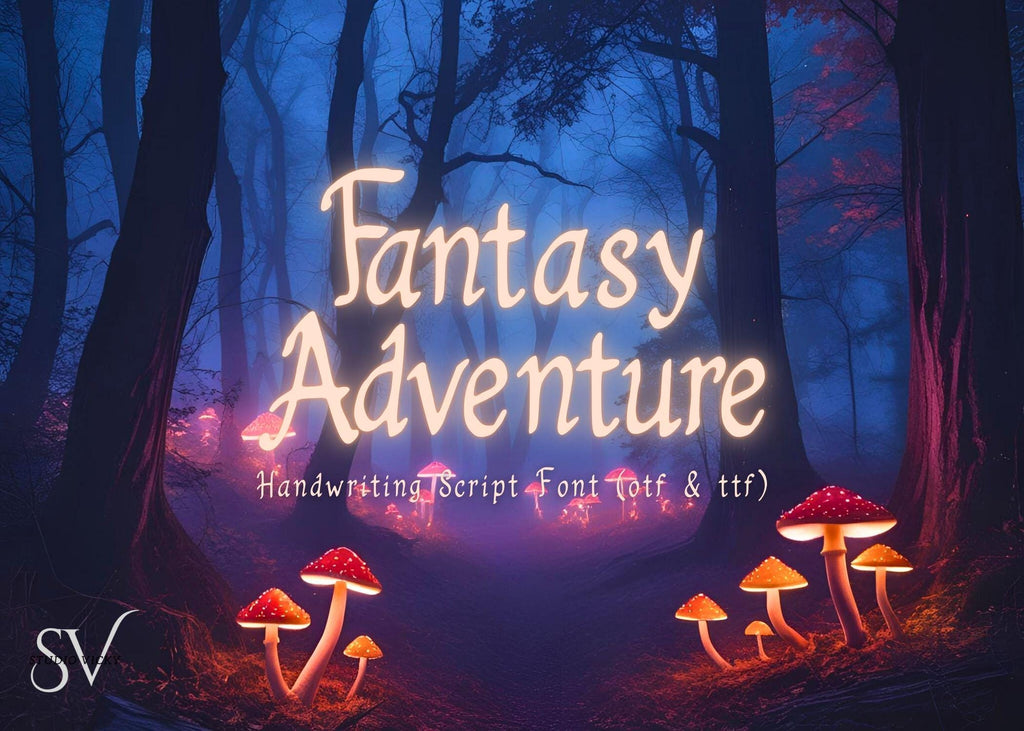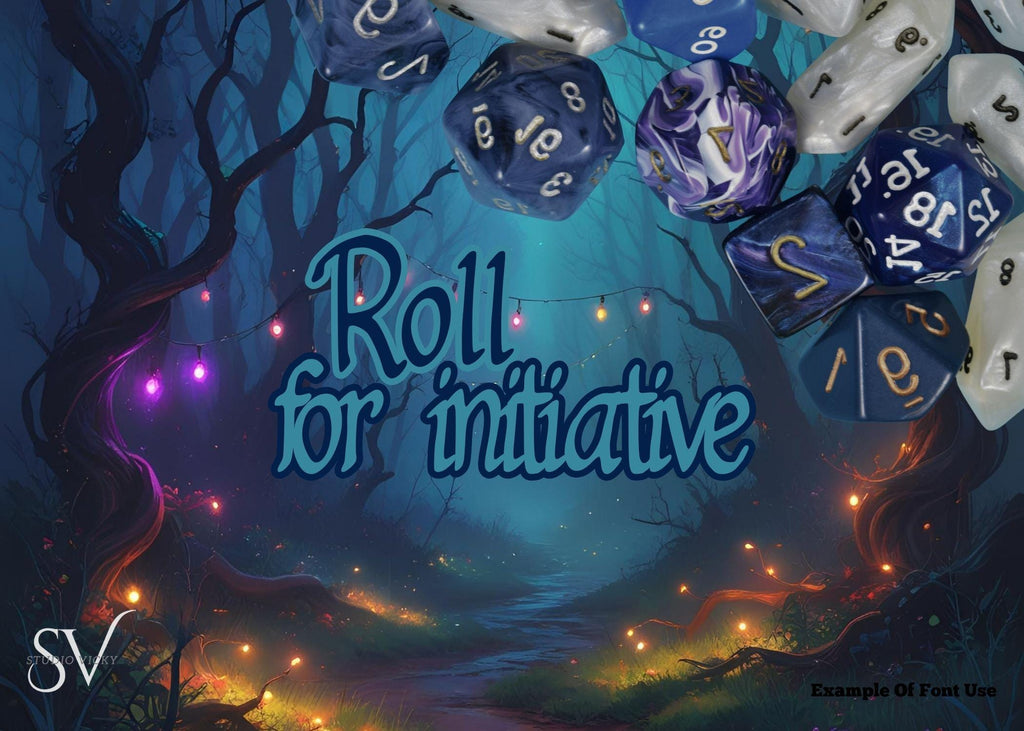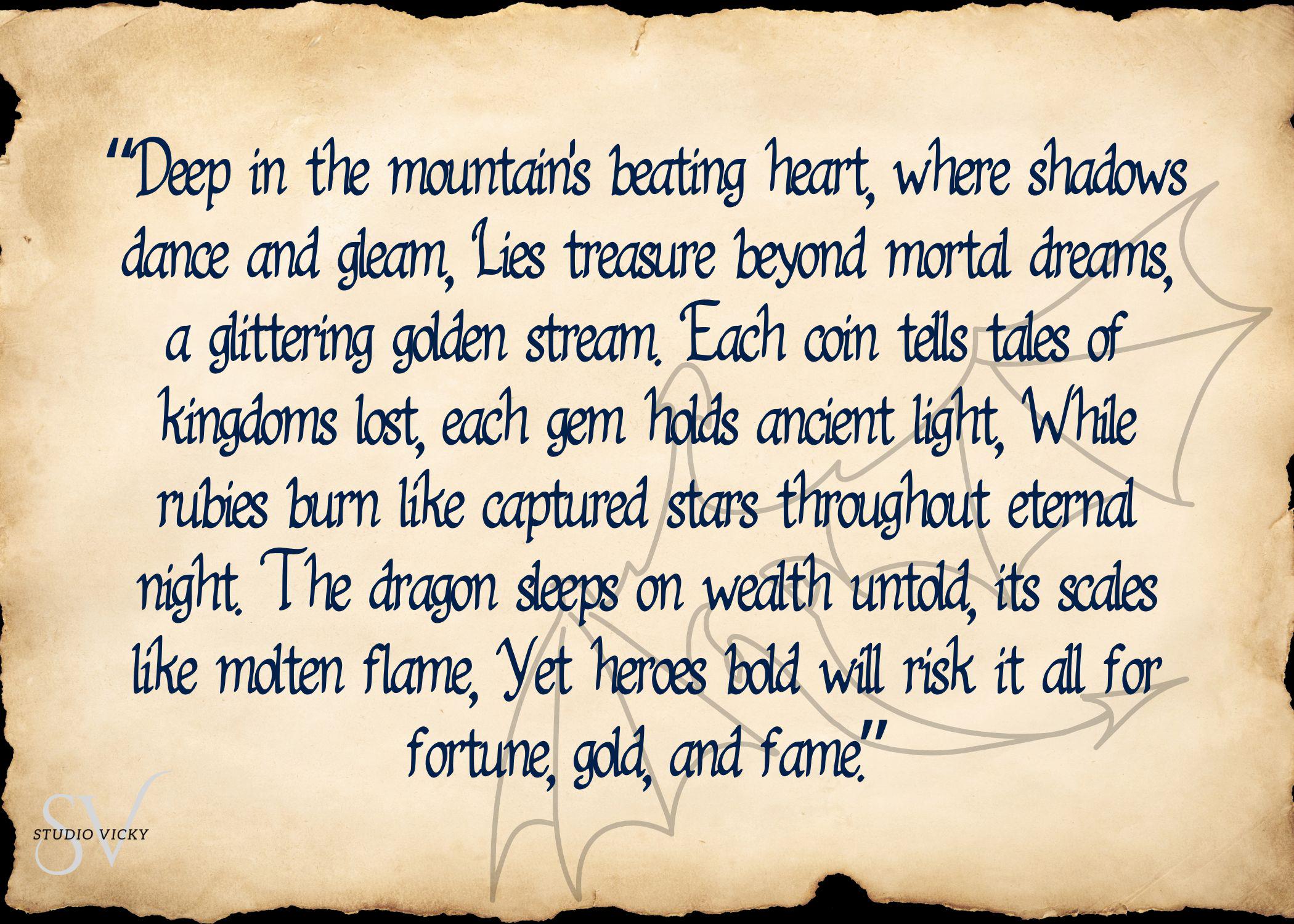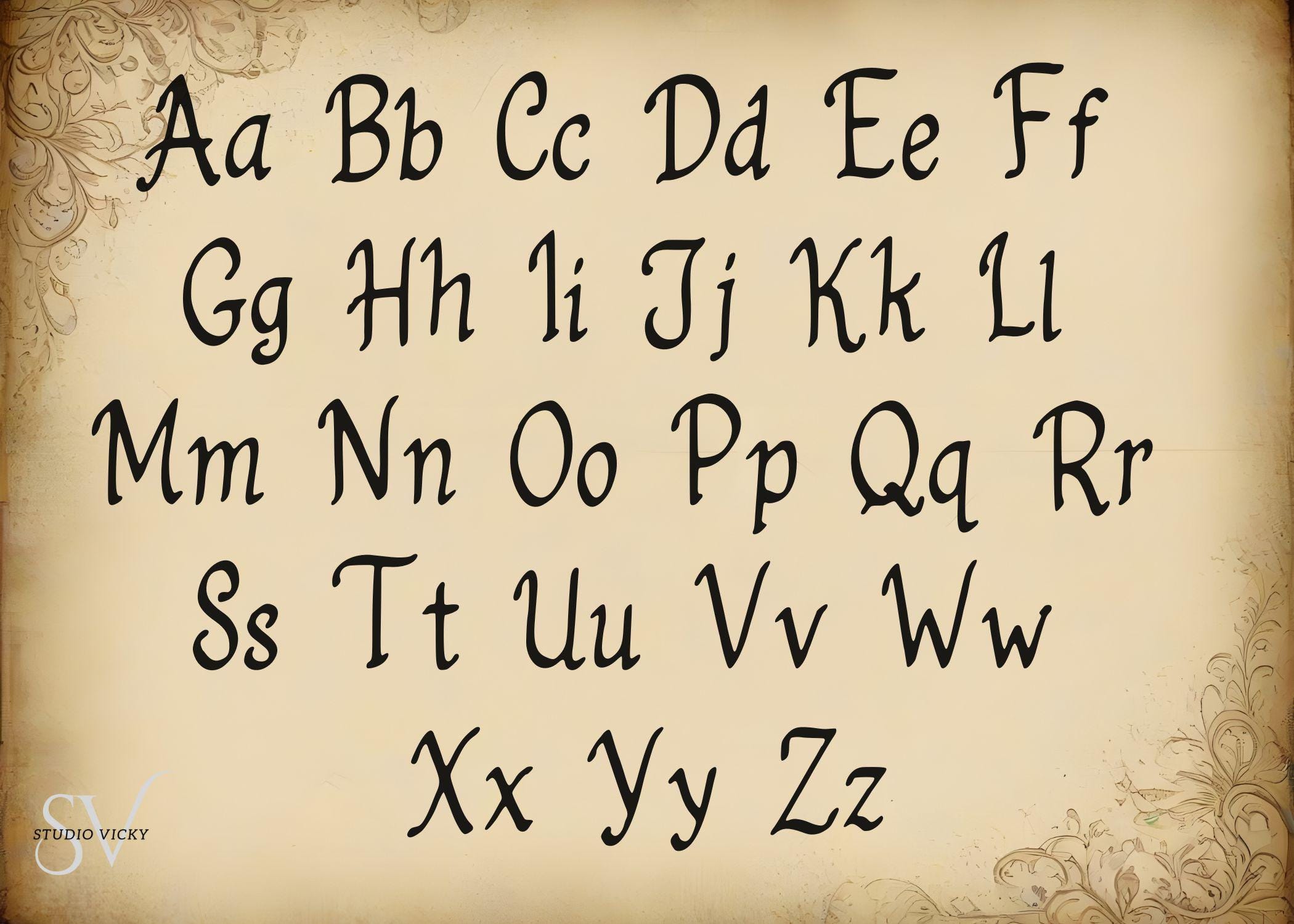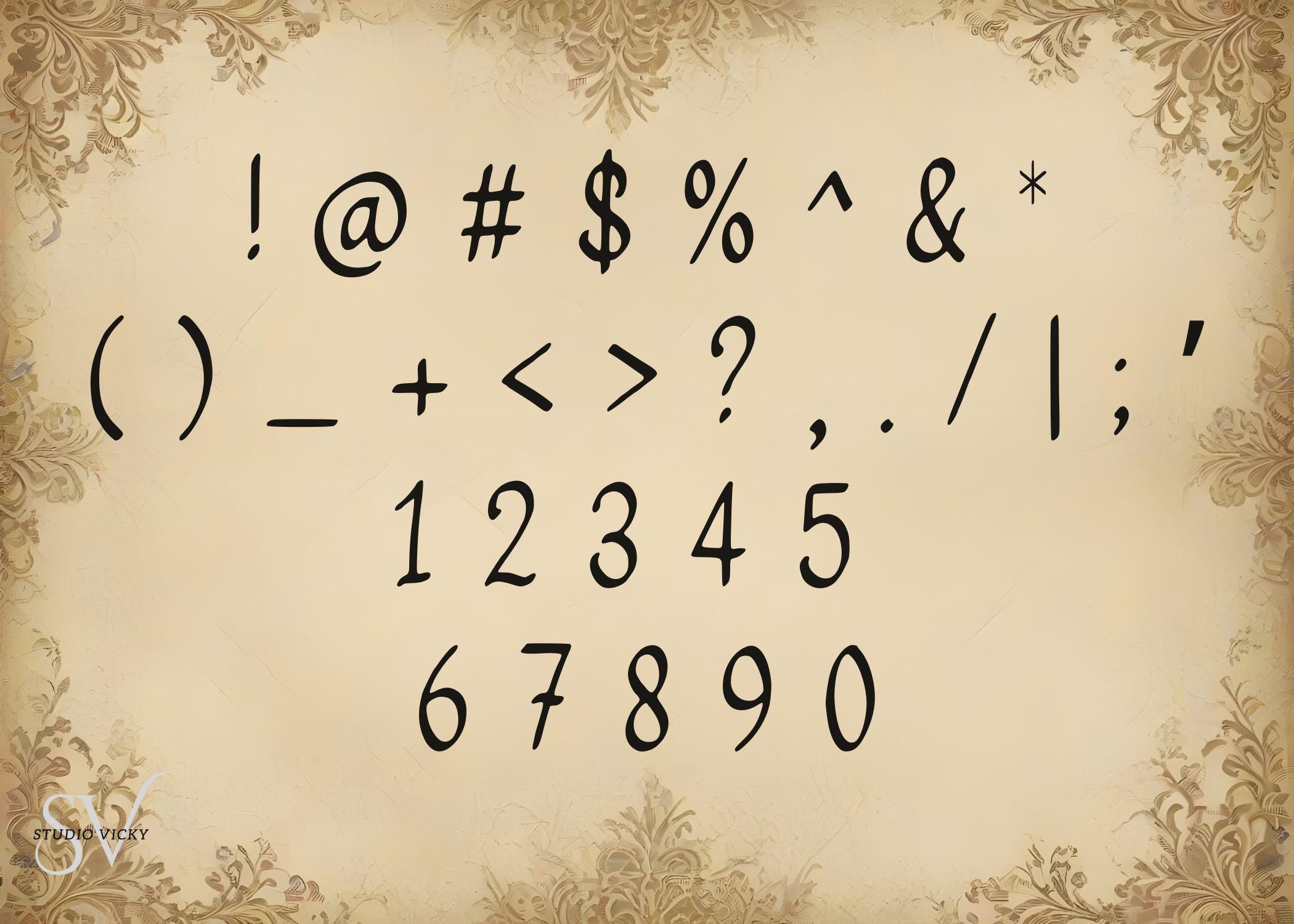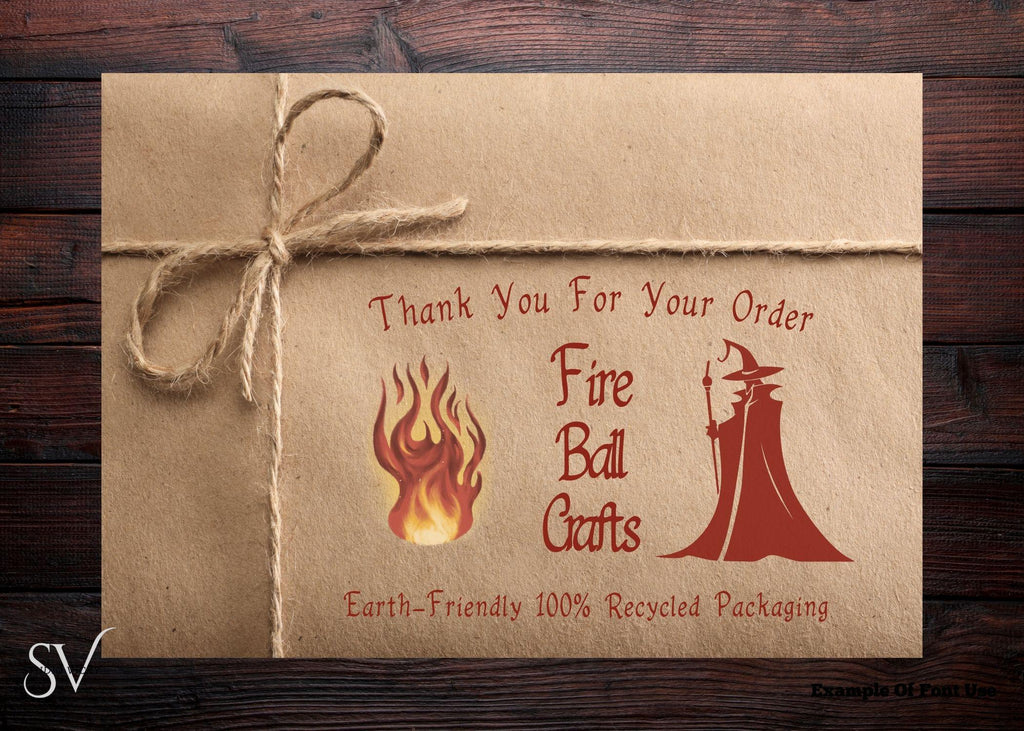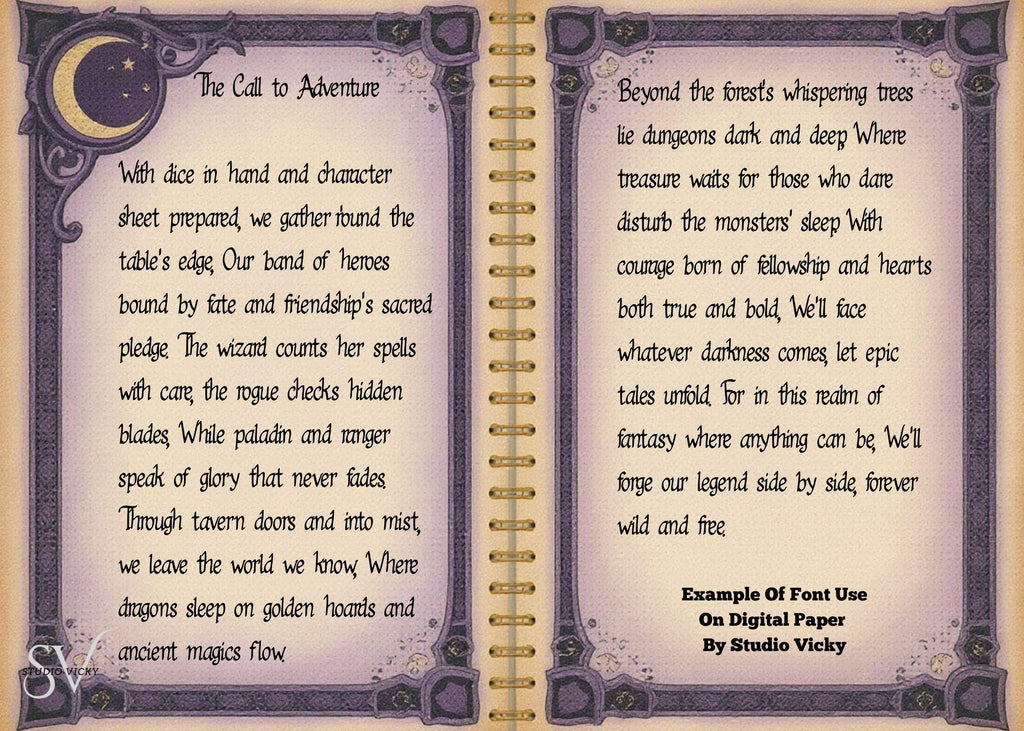
Let your imagination run wild with Fantasy Adventure—a charming handwritten script font that feels like it leapt straight from the pages of a storybook. With whimsical curves and a dash of medieval flair, this font is perfect for fantasy-themed designs, enchanted invitations, RPG character sheets, magical planner spreads, book covers, or anything that needs a touch of handcrafted wonder.
Whether you're crafting digital spellbooks, cozy journaling pages, or romantic fairy tale logos, Fantasy Adventure adds warmth, personality, and a little magic to every word.
✨Features:
Whimsical handwritten style
Smooth lines for easy cutting and printing